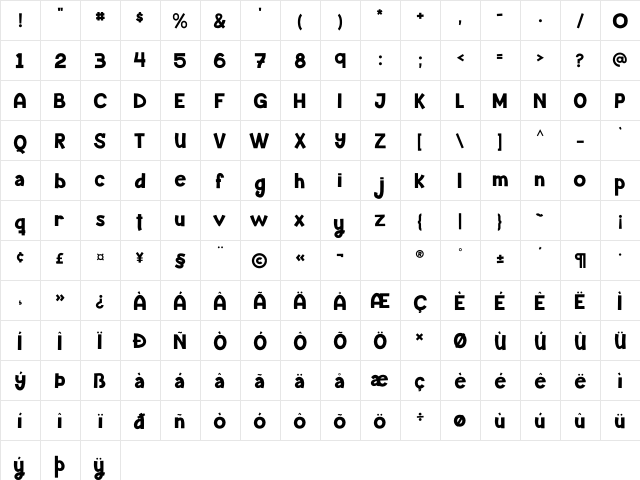
Junior Bold
| Foundry | Don Marciano |
| Designer | Juan Miguel Castillo Romero |
Design Context for Junior Typeface
Junior takes a measured approach to typography — its balanced proportions and neutral character make it a reliable workhorse for both digital and print work. The heavy weight commands attention and anchors typographic hierarchies.